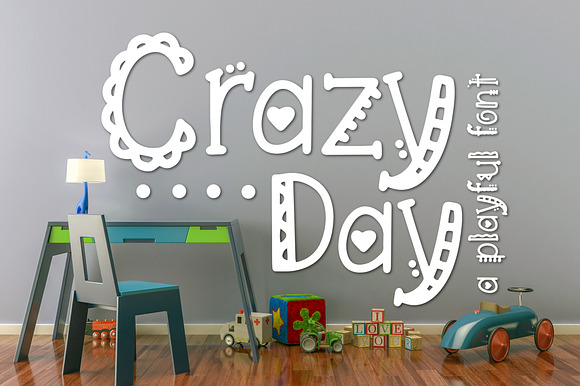
Crazy Day A Playful Font
This font is perfect to add to any project.
Why Crazy Day A Playful Font is worth a look
Crazy Day A Playful Font by Kitaleigh fits naturally into Branding, posters, packaging, typography.